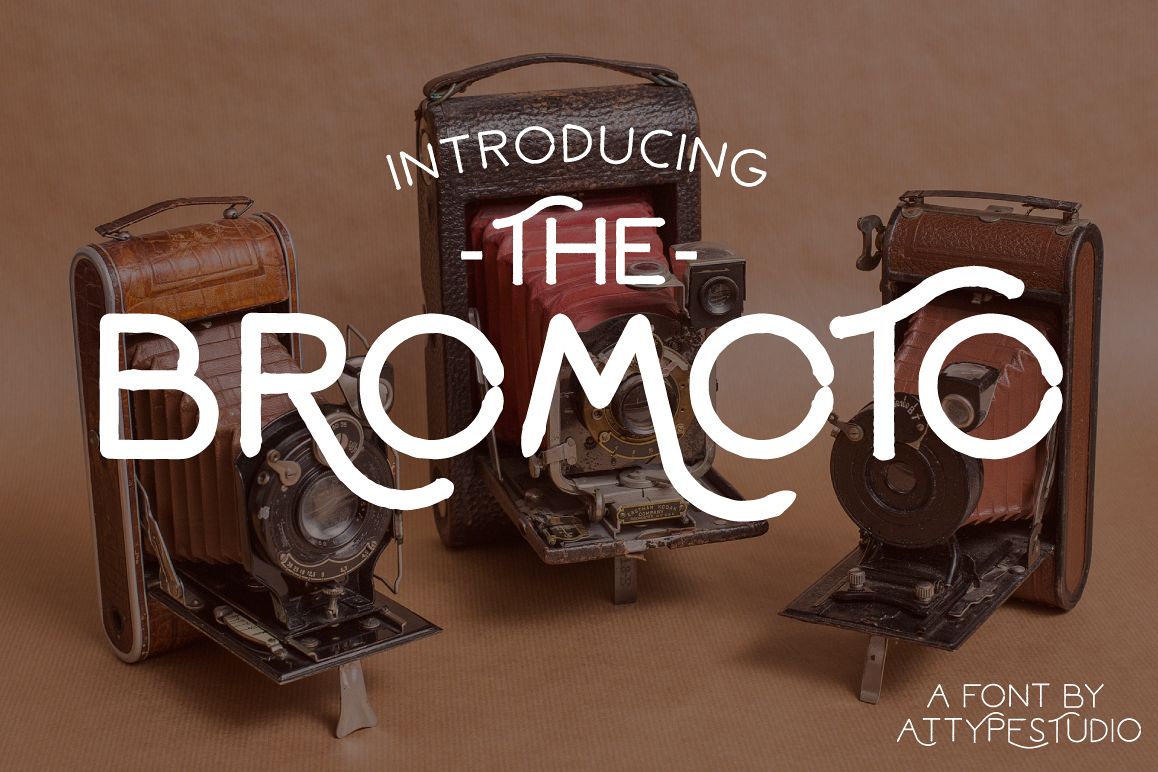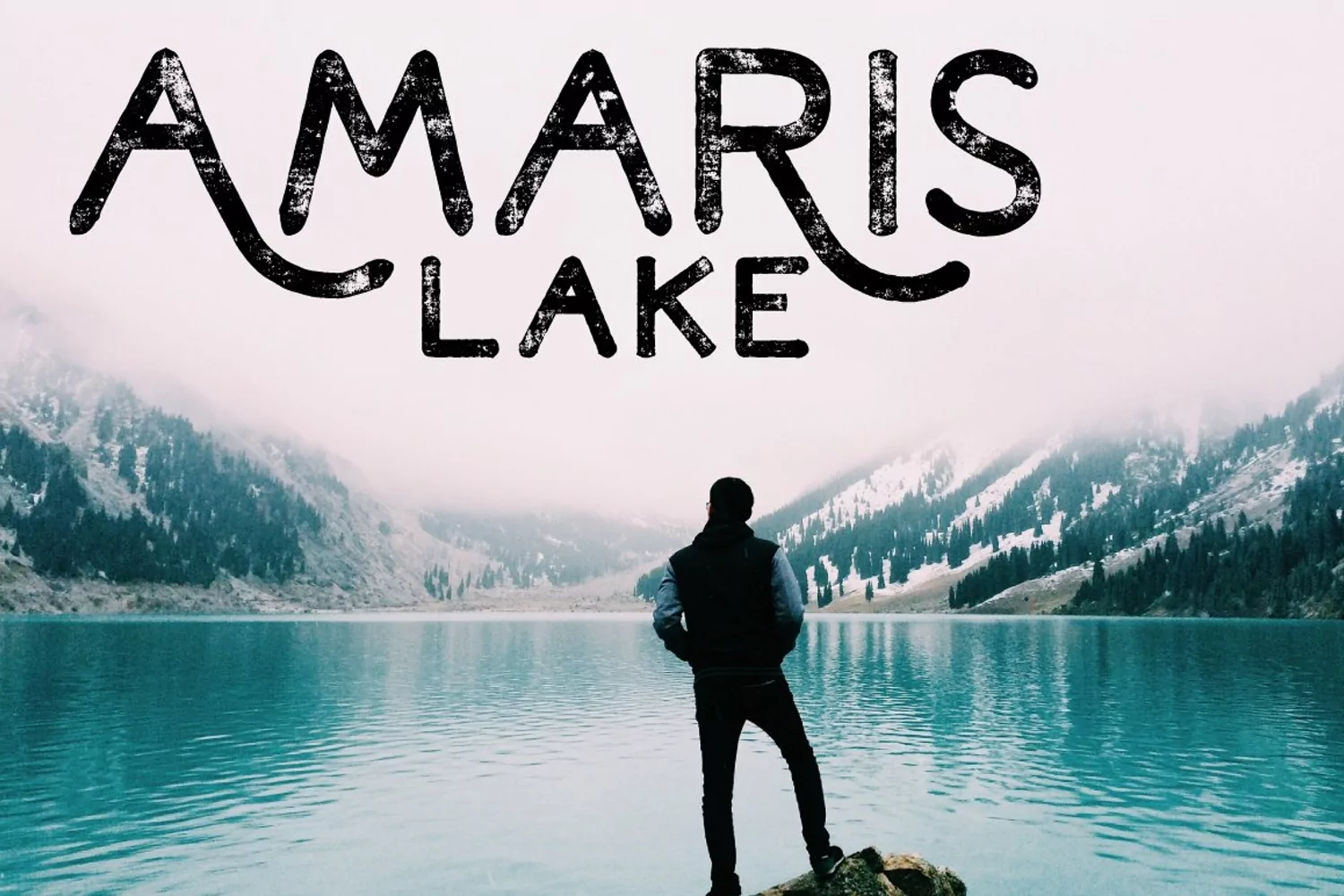
Give your typography design a striking look with Bromoto font!
Bromoto comes in two styles: Regular and Bold. The combination of the two styles make Bromoto a fun and playful font.
Suitable and applicable to create vintage design, branding, logos, product packaging, invitation, qoutes, t-shirt, label poster etc.
- Punctuation and Number
- Multilingual Language
- Alternate Character
- More than 250 glyphs